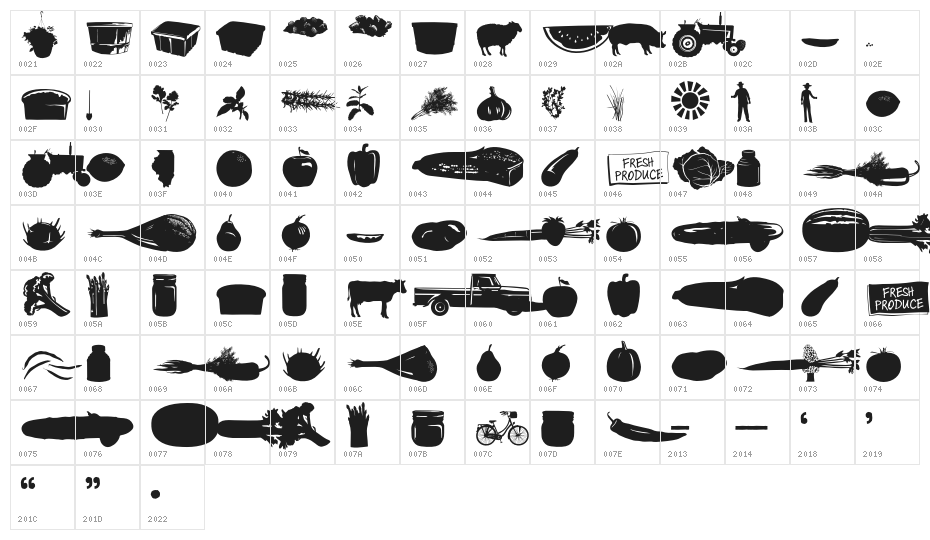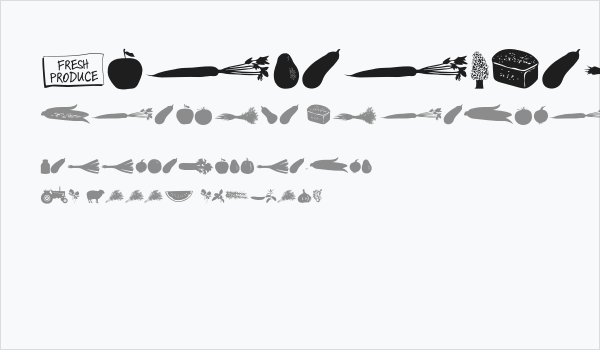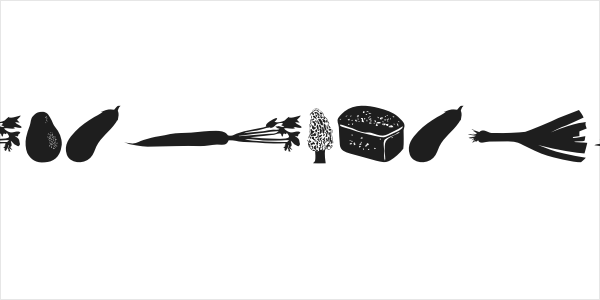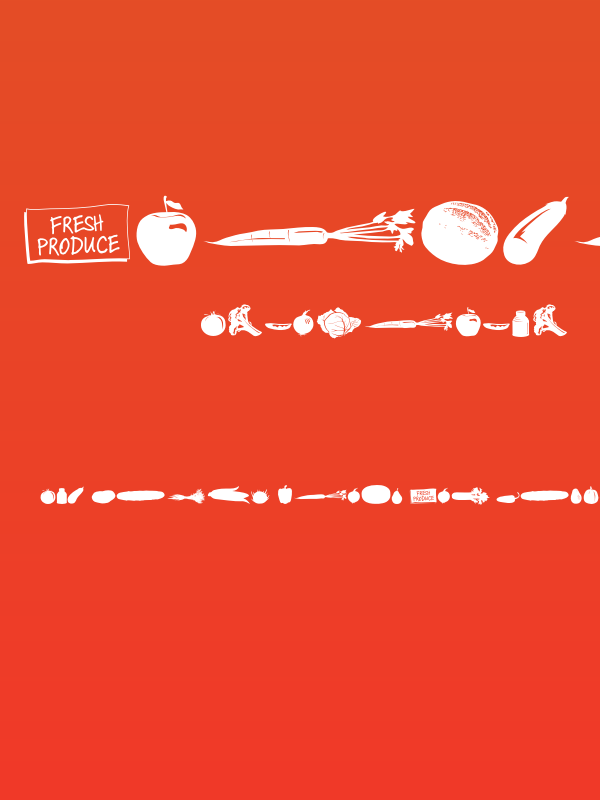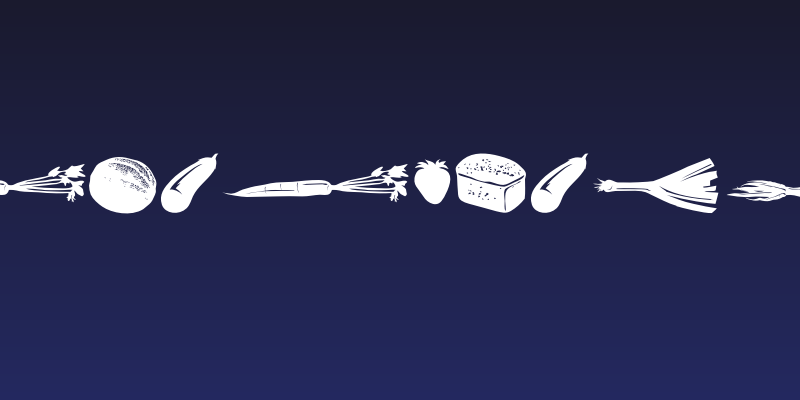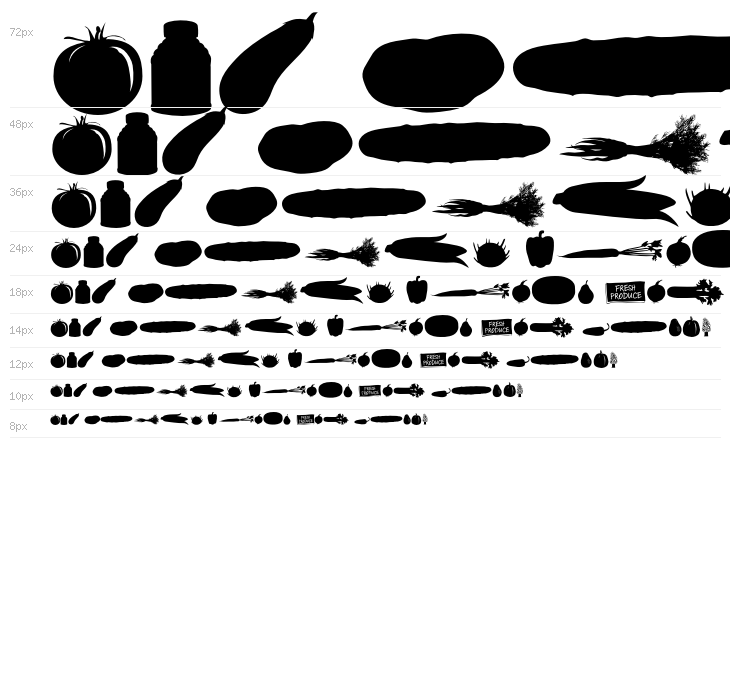
FarmersDelight Font
FarmersDelight Description
A decorative dingbat font featuring bold, high-contrast silhouettes of farm produce, vegetables, herbs, livestock, and related items. Each glyph is a detailed black icon, making it ideal for thematic and illustrative uses rather than traditional text.
| Overall Style | Decorative, Rustic, Thematic |
| Use Case | Logos, Decorative elements, Thematic headers, Illustrations |
| Proposed Projects | Farmers market signage, organic food packaging, recipe cards, event flyers, educational materials, childrenΓ’β¬β’s books. |